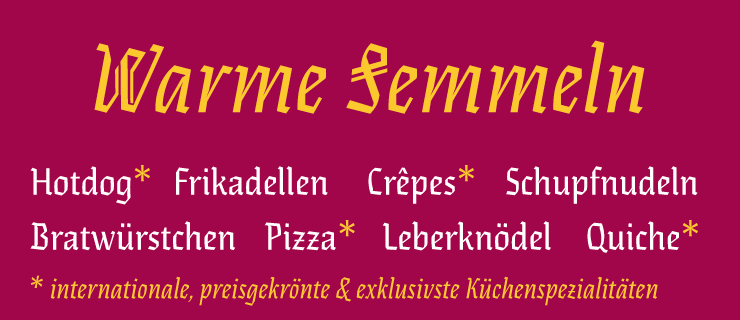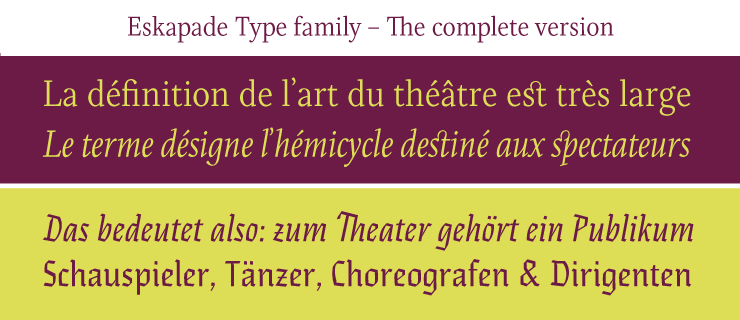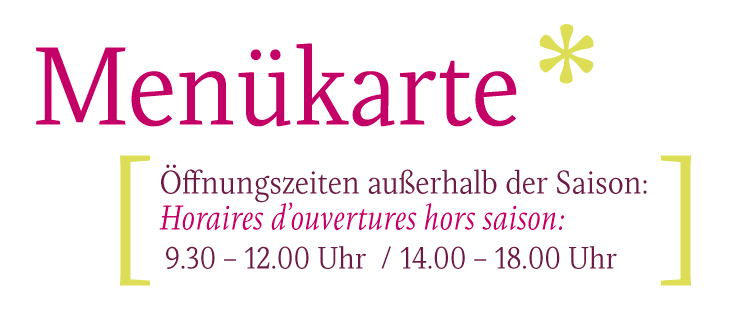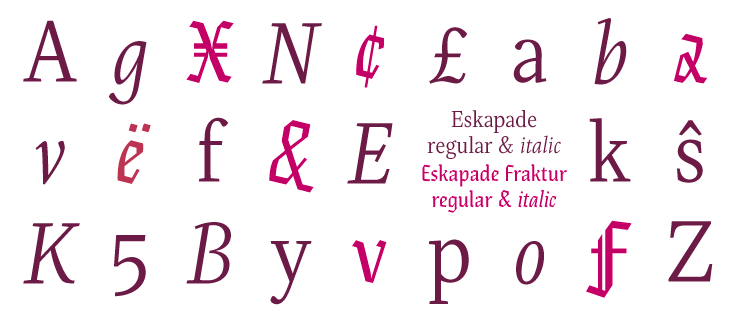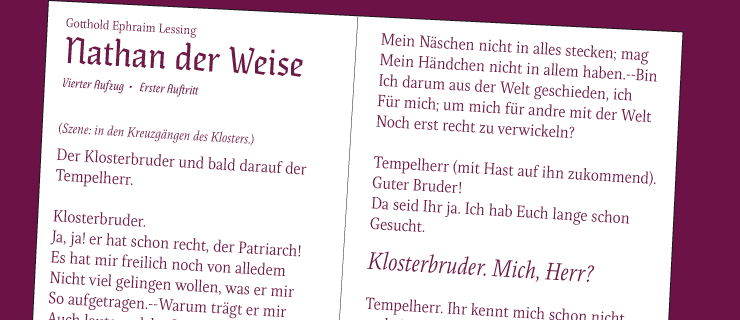
Eskapade
Designed by Alisa Nowak . Released 2012.
An experimental Fraktur and a nimble oldstyle serif now share common ground in Eskapade. The serif styles have a contemporary ease, light typographic colour, and smooth design — perfect for continuous book and magazine text. Eskapade Fraktur’s visual punch captures the reader’s attention in headlines, visual identities, branding and logotypes, and packaging, especially with the second set of double-stroked decorative capitals that encourage experimental use and creative application.
The Backstory
Eskapade
Creating new common ground between a nimble oldstyle serif font and an experimental Fraktur.
The Eskapade font family is the result of Alisa Nowak’s research into Roman and German blackletter forms, mainly Fraktur letters. The idea was to adapt these broken forms into a contemporary family instead of creating a faithful revival of an historical typeface. On one hand, the ten normal Eskapade styles are conceived for continuous text in books and magazines with good legibility in smaller sizes. On the other hand, the six angled Eskapade Fraktur styles capture the reader’s attention in headlines with its mixture of round and straight forms as seen in ‘e’, ‘g’, and ‘o’. Eskapade works exceptionally well for branding, logotypes, and visual identities, for editorials like magazines, fanzines, or posters, and for packaging.
Eskapade roman adopts a humanist structure, but is more condensed than other oldstyle serifs. The reason behind this stems from the goal of closely resembling the Fraktur style to create harmony in mixed text settings. Legibility is enhanced by its low contrast between thick and thin strokes and its tall x-height. Eskapade offers an airy and light typographic colour with its smooth design. Eskapade italic is based on the Cancellaresca script and shows some particularities in its condensed and round forms. This structure also provided the base for Eskapade Fraktur Italic.
Eskapade Fraktur is more contrasted and slightly bolder than the usual darkness of a regular weight. The innovative Eskapade Fraktur Italic, equally based on the Cancellaresca script previously mentioned, is secondarily influenced by the Sütterlin forms — an unique script practiced in Germany in the vanishingly short period between 1915 and 1941. The new ornaments are also hybrid Sütterlin forms to fit with the smooth roman styles.
Although there are many Fraktur-style typefaces available today, they usually lack italics, and their italics are usually slanted uprights rather than proper italics. This motivated extensive experimentation with the italic Fraktur shapes and resulted in Eskapade Fraktur’s unusual and interesting solutions. In addition to standard capitals, it offers a second set of more decorative capitals with double-stroke lines to intensify creative application and encourage experimental use.
The Thin and Black Fraktur styles are meant for display sizes (headlines, posters, branding, and signage). A typeface with this much tension needs to keep a good harmony between strokes and counters, so Eskapade Black has amplified inktraps and a more dynamic structure seen in the contrast between straight and round forms. These qualities make the family bolder and more enticing, especially with the included uppercase alternates. The Fraktur’s black weights are strident, refusing to let the white of the paper win the tug-of-war. It also won’t give away its secrets: Is it modern or historic, edgy or amicable, beguiling ornamentation or brutish presentation? That all depends on how the radically expanded Eskapade family is used, but its 16 fonts certainly aren’t tame. See some examples in our blog.